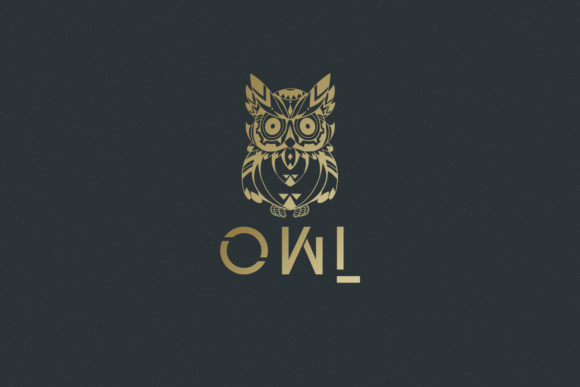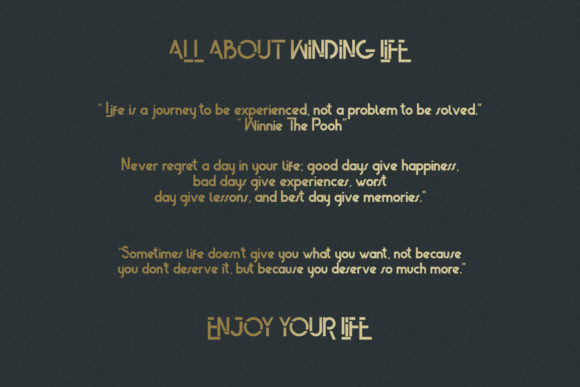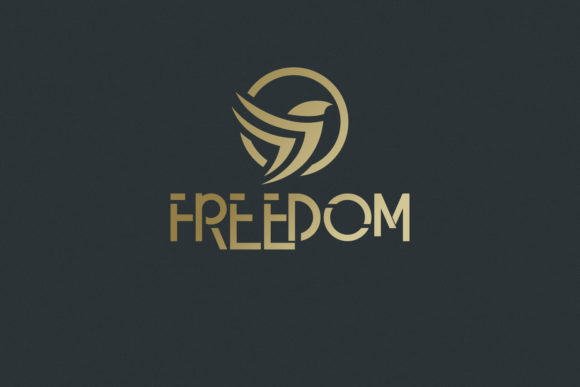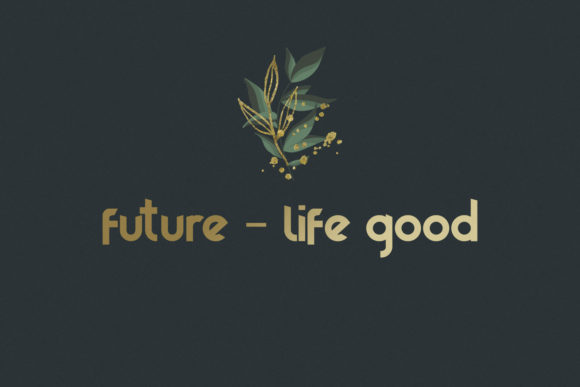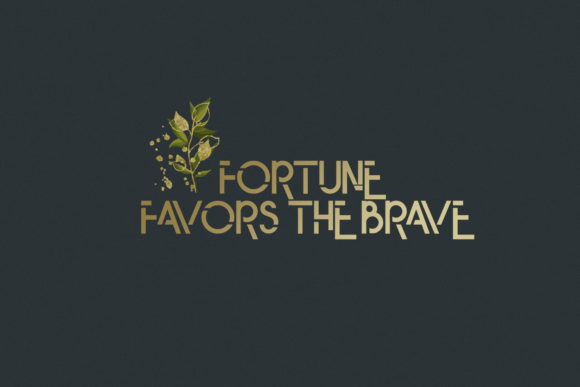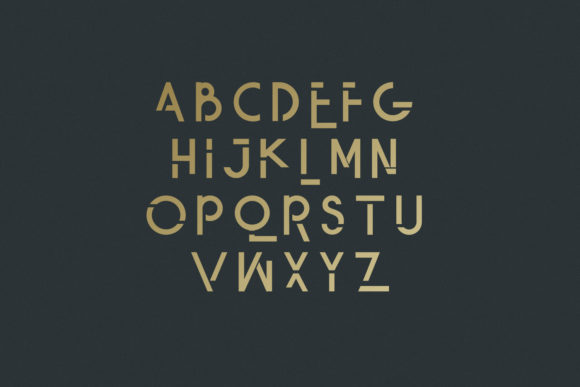
Introduction to Quiqt Font
Quiqt celebrates abstract shapes in all their eclectic beauty.
This playfully display typeface font will look truly outstanding in a wide range of contexts .
Key Features of Quiqt Font
Why Choose Quiqt Font?